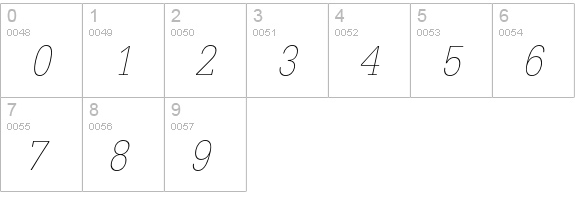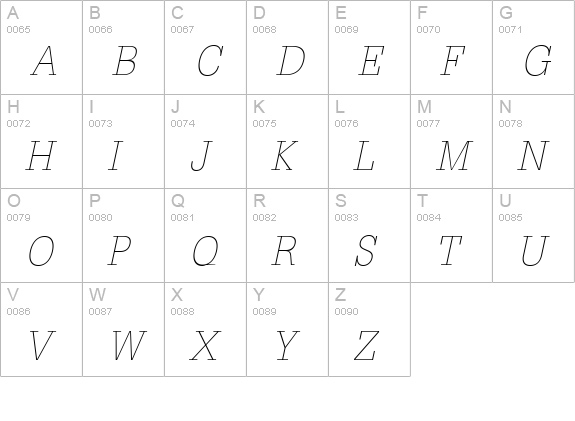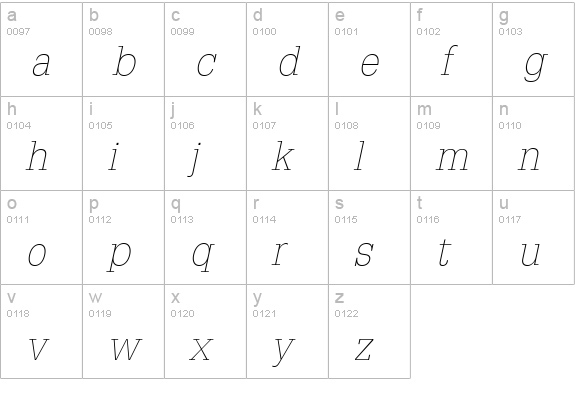
Glypha 35 Thin Oblique Font Details
Glypha 35 Thin Oblique is a delicate, low-contrast, italic variant in the Glypha typeface family \xE2\x80\x94 well suited to fashion editorial, minimal branding, and high-contrast display.